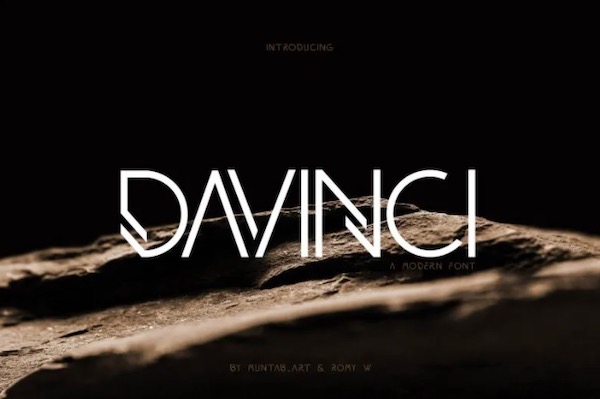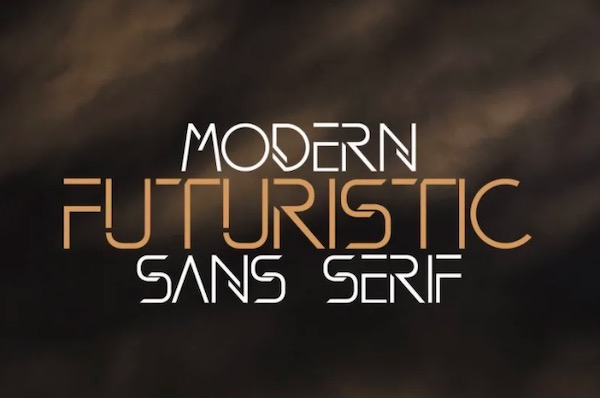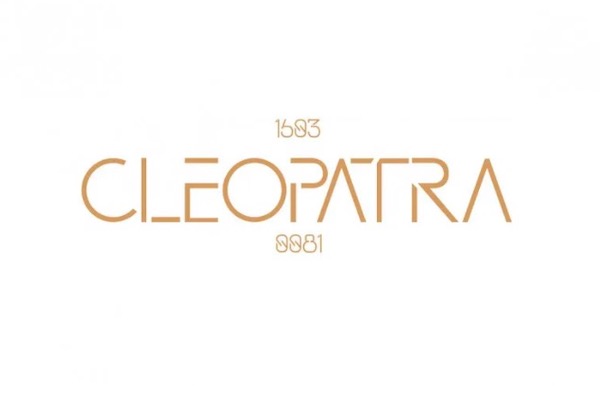
Introducing DAVINCI font, this display sans typeface was created and shared by Muntab_Art Studio. It contains uppercase characters, along with a vast range of punctuation and numerals. It will be perfect for badges, branding, web design, poster, illustrations, and other designs.
DAVINCI Display Sans Serif Font
Font family: DAVINCI
Full font name: DAVINCI
Designer Name: Muntab_Art